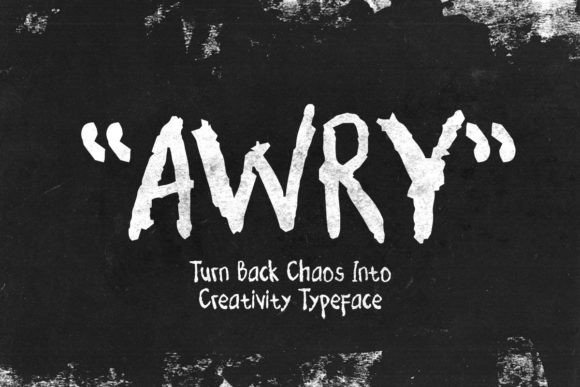
Introducing Awry Font: The Imperfectly Perfect Handwritten Masterpiece
Welcome to the realm of captivating disorder, where the allure of imperfect perfections reigns supreme. Awry Font, the brainchild of the talented Tammami, is not just a font; it's an artistic journey that blurs the boundaries between organized precision and captivating chaos.
Awry Font: A Dance of Organized Precision and Captivating Disorder
With its unique design, Awry Font gracefully pirouettes on the precipice of order and disorder, beckoning you to experience the beauty of imperfections. Its strokes, like the gentle whispers of a lover, dance across the page, whispering tales of love, passion, and unrestrained creativity.
Awry Font: Perfectly Imperfect for Your Handwritten Masterpieces
Awry Font is the perfect muse for those seeking a touch of handwritten elegance in their creative endeavors. Its carefully crafted imperfections add a layer of authenticity and charm, evoking a sense of nostalgia and personal connection. Whether you're a designer crafting a heartfelt message, a writer penning a passionate love letter, or a blogger sharing your innermost thoughts, Awry Font will elevate your words and make them resonate with your audience.
Awry Font: Unleash Your Creative Potential
With Awry Font as your creative companion, the possibilities are endless. Let its unique design inspire you to craft stunning logos that demand attention, eye-catching social media posts that captivate your followers, or heartfelt invitations that leave a lasting impression. Awry Font is your gateway to a world where creativity knows no bounds.
Awry Font: The Perfect Font for Handwritten Q
If you're searching for the perfect font to capture the essence of handwritten Q, look no further. Awry Font's meticulously crafted Q is a work of art, a visual symphony of curves and lines that dance together in perfect harmony. Its beauty is undeniable, a testament to the creative genius behind this font.
Awry Font: A Journey into the Extraordinary
Awry Font is more than just a collection of letters; it's a journey into the extraordinary, an invitation to explore the boundless realm of creativity. With its unique design, captivating disorder, and handwritten elegance, Awry Font is the perfect choice for those seeking to make a statement, to leave a lasting impression, and to create something truly extraordinary.